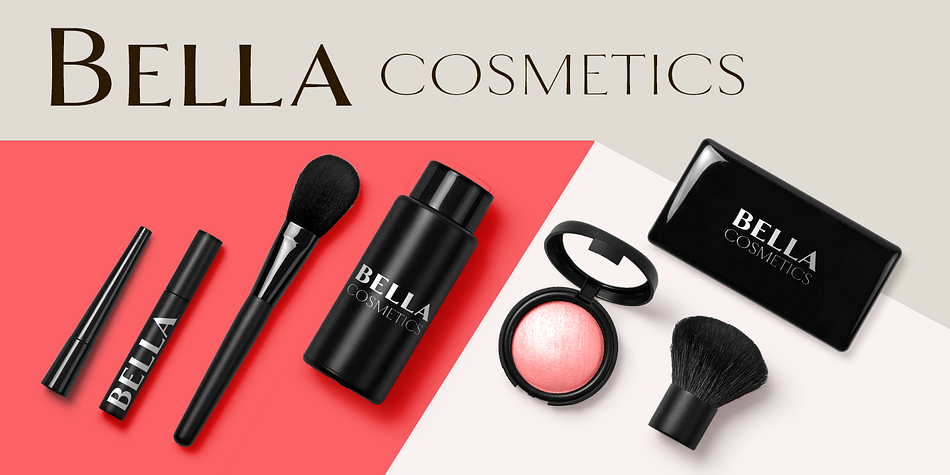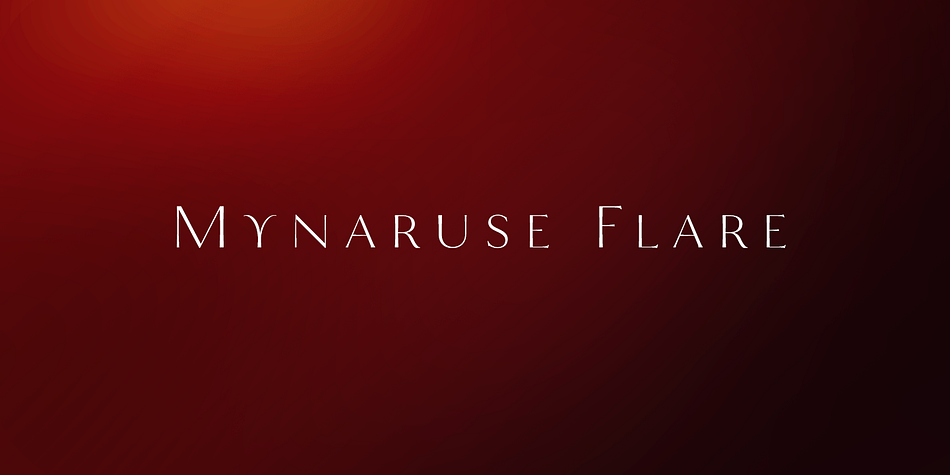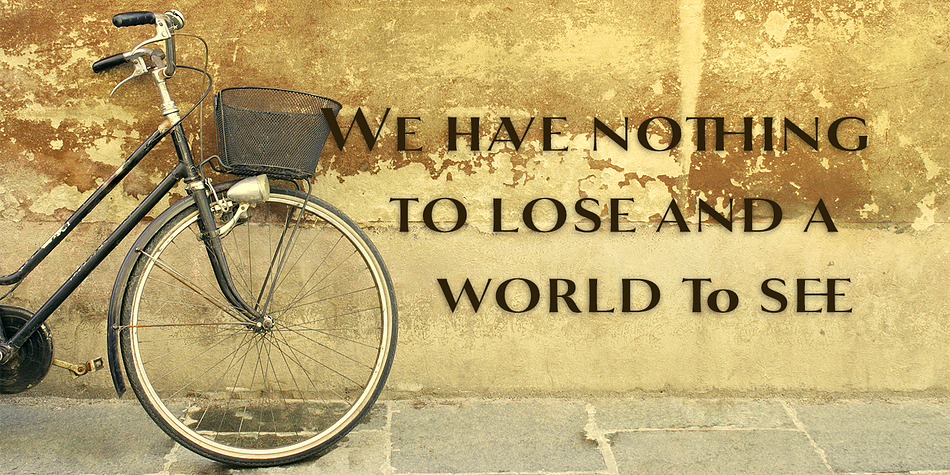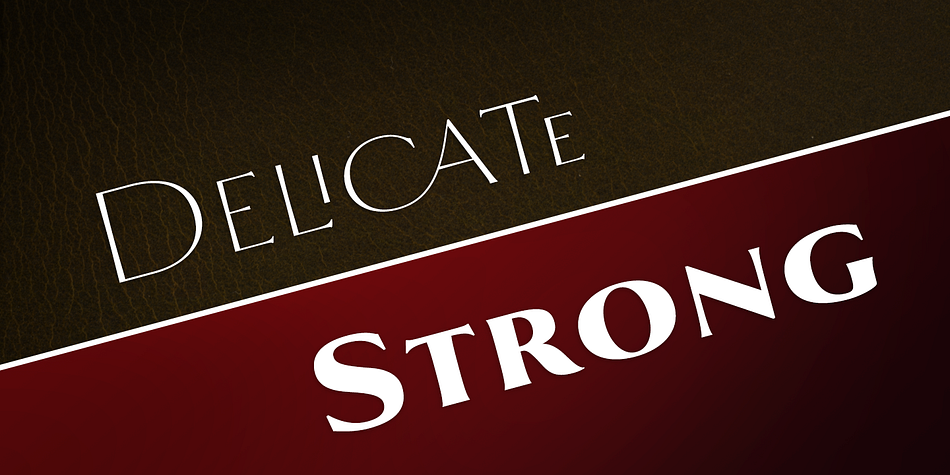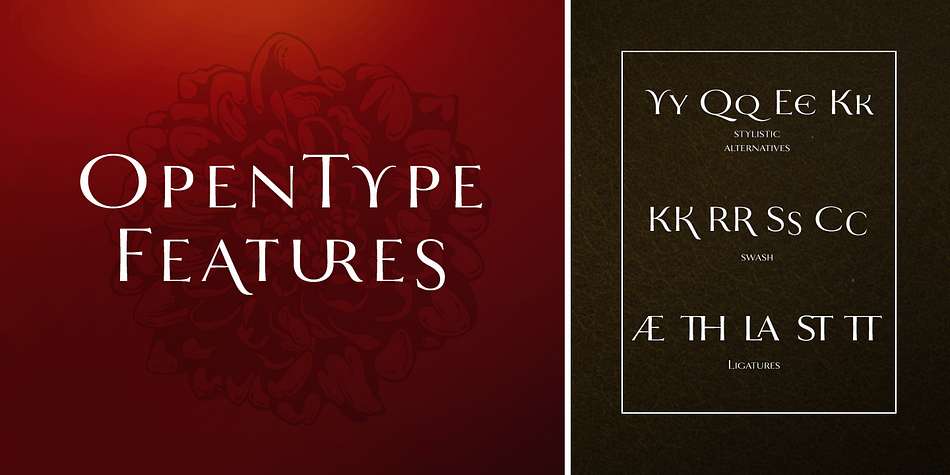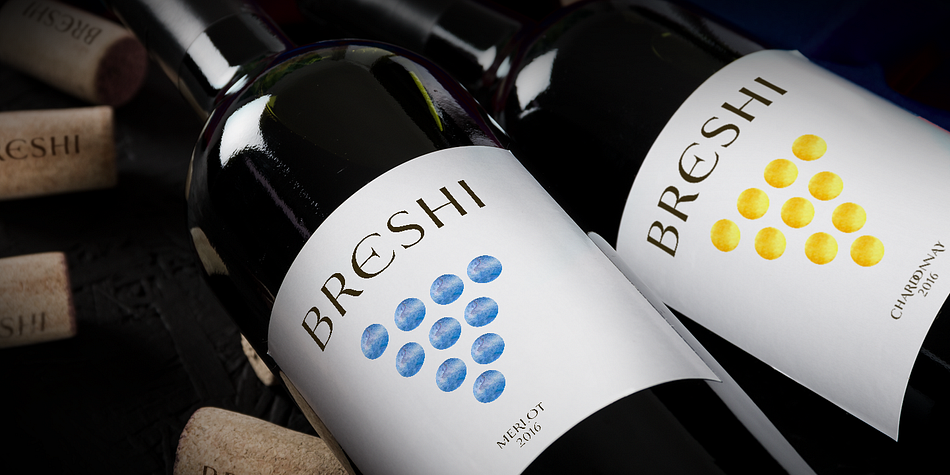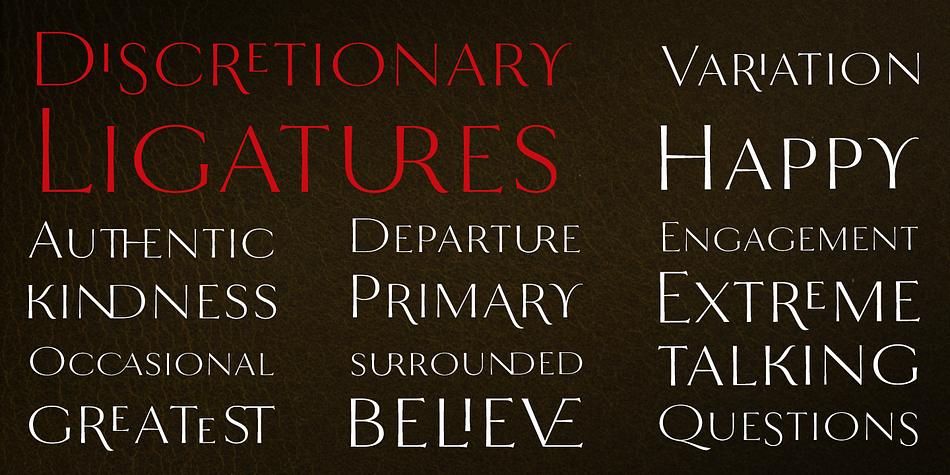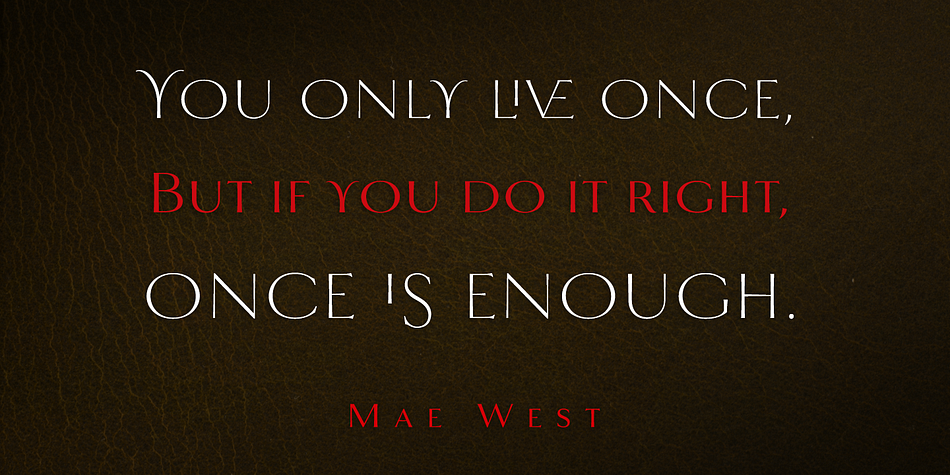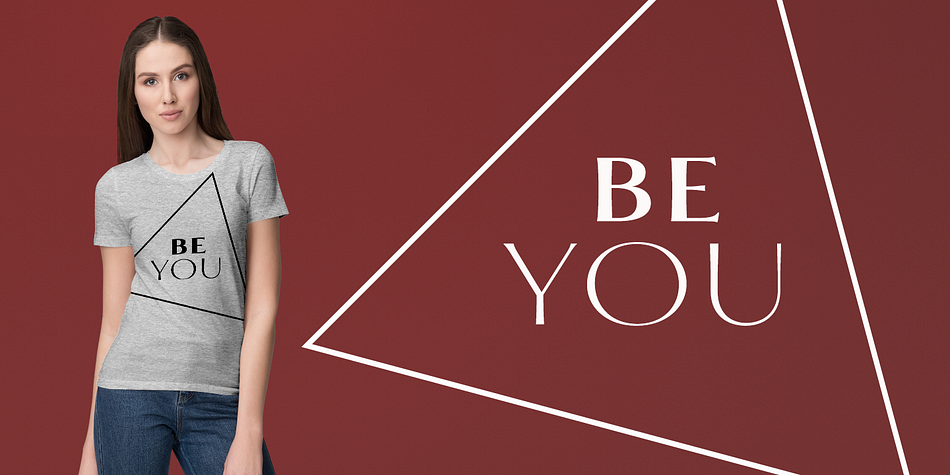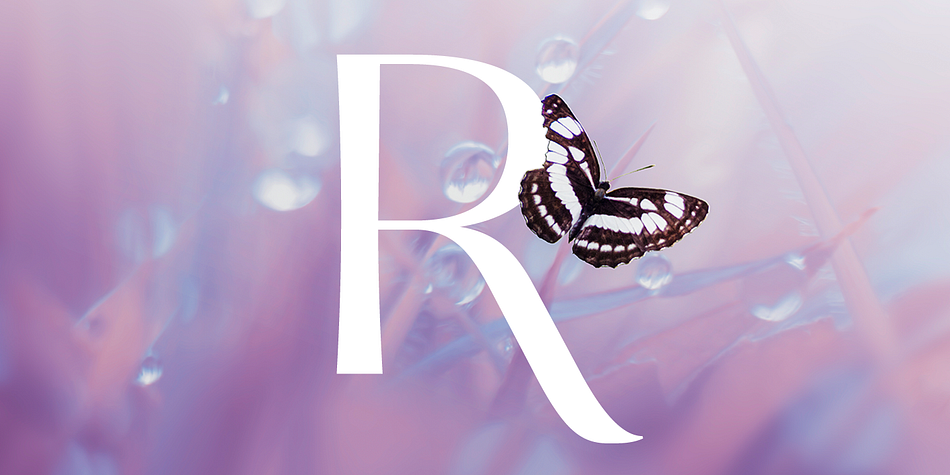
Designed by Jeremy Dooley, Mynaruse Flare is a display sans font family. This typeface has eight styles and was published by Insigne Design.
Give your project some pizzazz. Mynaruse Flare—new from the Mynaruse superfamily—eliminates the more rigid, elongated serifs of the original in lieu of stem endings with a bit of style.
A loose play off of Roman inscriptional types, Flare’s eight weights range from the delicate and exciting thin to a powerful, statement-making Black weight. Mynaruse Flare includes many useful OpenType features, too, including a set of swash alternates, alternate titling forms, ligatures and miscellaneous alternates that will keep your audience reading through the next great element.
OpenType-capable applications such as Quark or the Adobe suite can take full advantage of the automatically replacing ligatures and alternates. This family also includes the glyphs to support a wide range of languages.
Set Flare as your next title, whether in logotypes, posters or other high-end luxury applications. With this much style, you won’t be able to keep it out of the headlines.